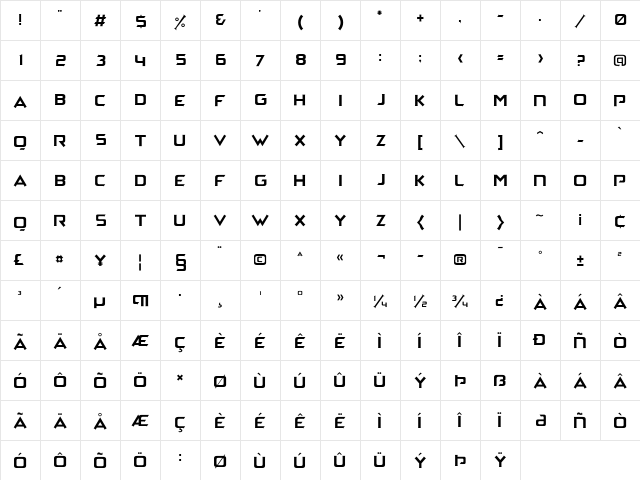
Archena Personal Use Regular
| Foundry | Tama Putra |
| Designer | Tama Putra |
Design Context for Archena Personal Use Typeface
Archena Personal Use is a composed and adaptable typeface that performs quietly and consistently across a wide range of design contexts.